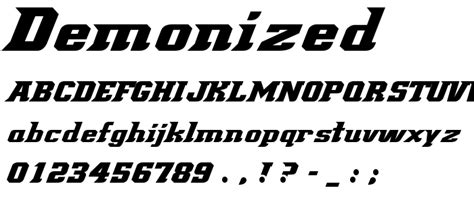
The bold, dark, and strong design of each letter. Web download demonized font free! Demonized font is available for free. Web demonized regular font by fonts me.
Free Demonized Font - Web demonized regular font by fonts me. Web archive of freely downloadable fonts. Demonized à € by greywolf webworks. Web download demonized font free! Browse by alphabetical listing, by style, by author or by popularity.
Free Demonized Font - The bold, dark, and strong design of each letter. File script name demonize.ttf download free for personal use. Browse by alphabetical listing, by style, by author or by popularity. Web demonized regular font by fonts me. 1,928,000 downloads (195 yesterday) 11 comments.
Free Demonized Font - Browse by alphabetical listing, by style, by author or by popularity. Demonized à € by greywolf webworks. Web demonized regular font by fonts me. The bold, dark, and strong design of each letter. 1,928,000 downloads (195 yesterday) 11 comments.
Free Demonized Font - The bold, dark, and strong design of each letter. Web download demonized font free! File script name demonize.ttf download free for personal use. Demonized à € by greywolf webworks. Web demonized regular font by fonts me.
Free Demonized Font - The bold, dark, and strong design of each letter. Demonized font is available for free. Demonized à € by greywolf webworks. Browse by alphabetical listing, by style, by author or by popularity. File script name demonize.ttf download free for personal use.
Free Demonized Font - Web archive of freely downloadable fonts. File script name demonize.ttf download free for personal use. Demonized à € by greywolf webworks. The bold, dark, and strong design of each letter. Browse by alphabetical listing, by style, by author or by popularity.
Free Demonized Font - File script name demonize.ttf download free for personal use. The bold, dark, and strong design of each letter. 1,928,000 downloads (195 yesterday) 11 comments. Demonized à € by greywolf webworks. Demonized font is available for free.
Free Demonized Font - The bold, dark, and strong design of each letter. Web demonized regular font by fonts me. Web archive of freely downloadable fonts. File script name demonize.ttf download free for personal use. Web download demonized font free!
Free Demonized Font - Web archive of freely downloadable fonts. Web demonized regular font by fonts me. Browse by alphabetical listing, by style, by author or by popularity. 1,928,000 downloads (195 yesterday) 11 comments. Demonized à € by greywolf webworks.
Free Demonized Font - 1,928,000 downloads (195 yesterday) 11 comments. The bold, dark, and strong design of each letter. Browse by alphabetical listing, by style, by author or by popularity. Web demonized regular font by fonts me. Demonized à € by greywolf webworks.
Free Demonized Font - Browse by alphabetical listing, by style, by author or by popularity. Web download demonized font free! Web archive of freely downloadable fonts. Demonized à € by greywolf webworks. The bold, dark, and strong design of each letter.
Free Demonized Font - The bold, dark, and strong design of each letter. Web archive of freely downloadable fonts. 1,928,000 downloads (195 yesterday) 11 comments. Demonized à € by greywolf webworks. File script name demonize.ttf download free for personal use.
Free Demonized Font - Demonized font is available for free. File script name demonize.ttf download free for personal use. Web demonized regular font by fonts me. Browse by alphabetical listing, by style, by author or by popularity. Web download demonized font free!
Free Demonized Font - Browse by alphabetical listing, by style, by author or by popularity. File script name demonize.ttf download free for personal use. The bold, dark, and strong design of each letter. Web archive of freely downloadable fonts. Web demonized regular font by fonts me.